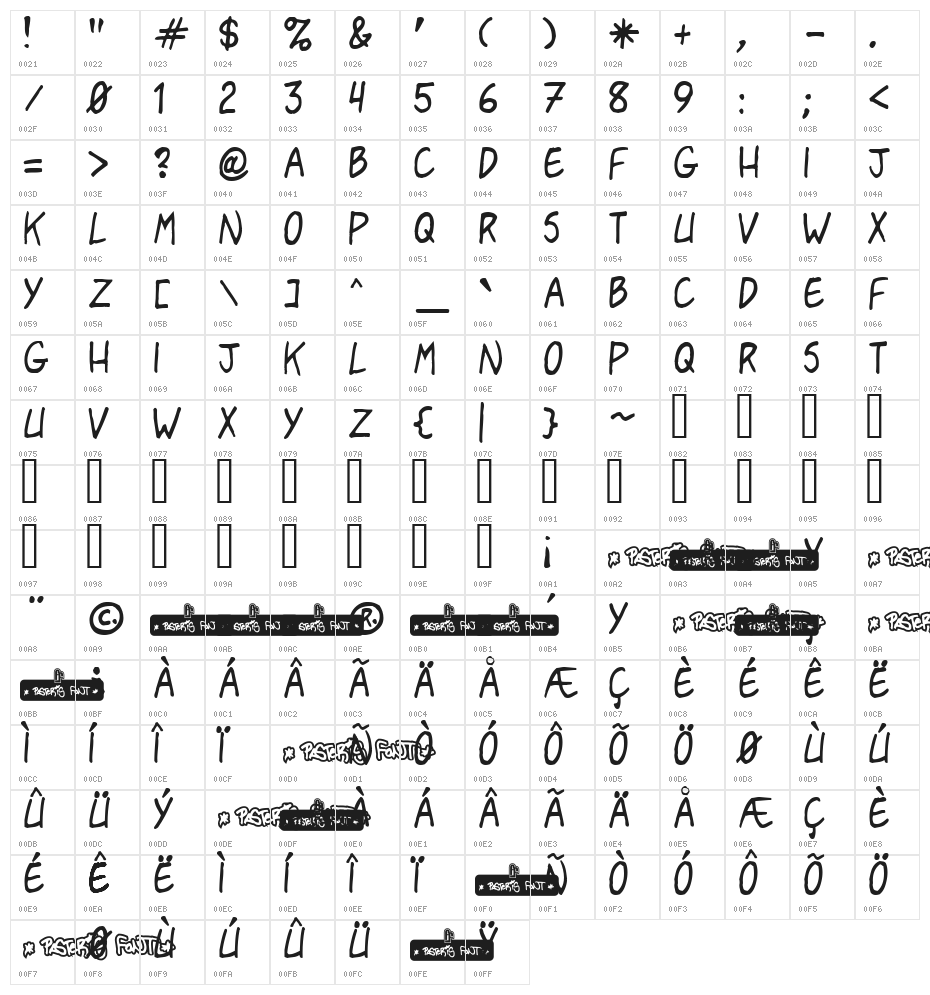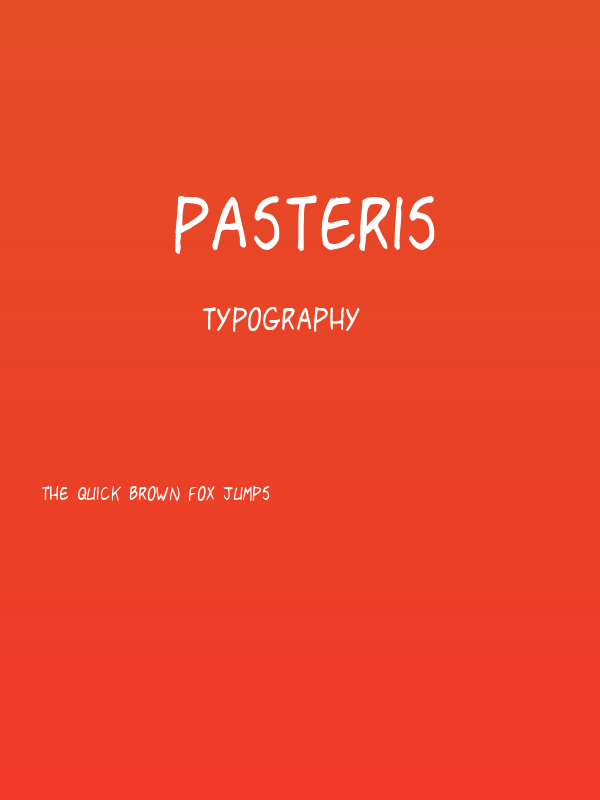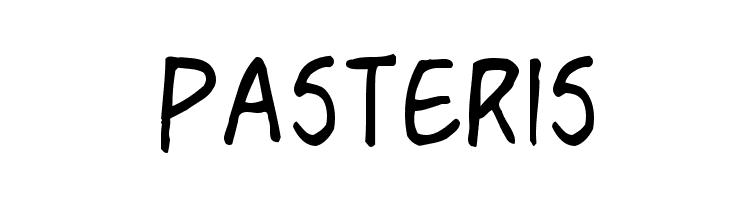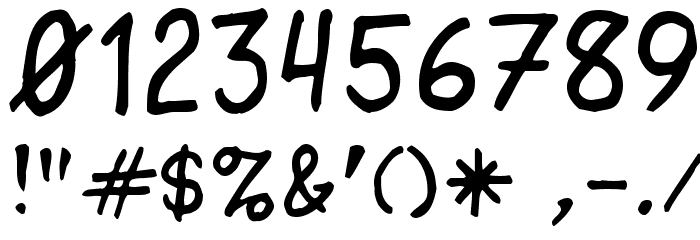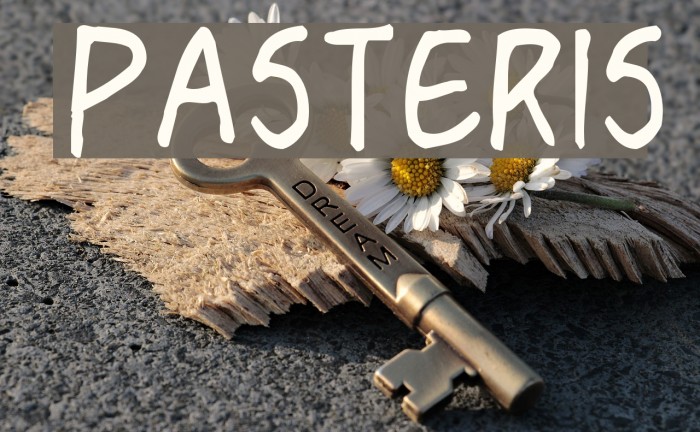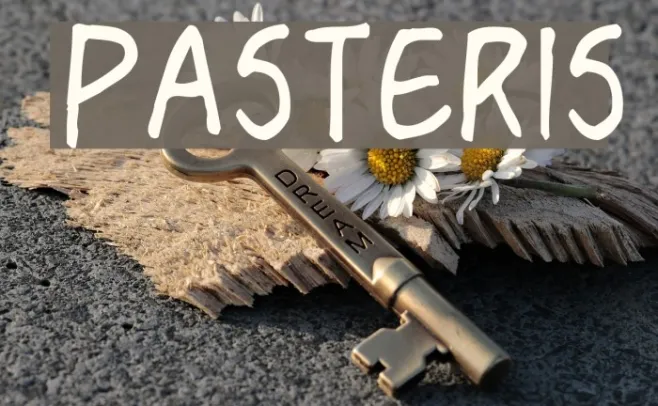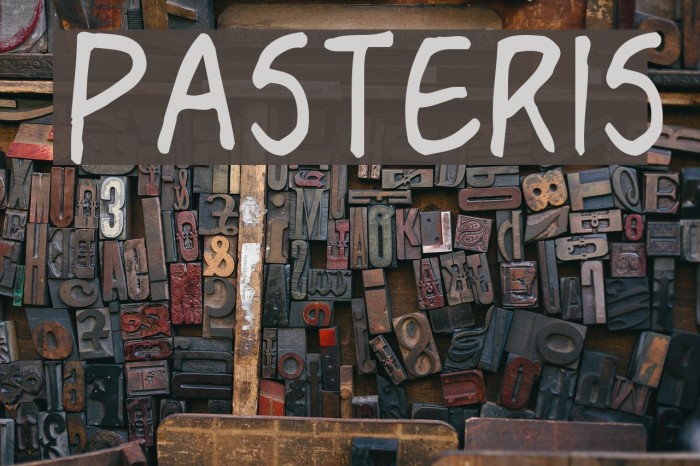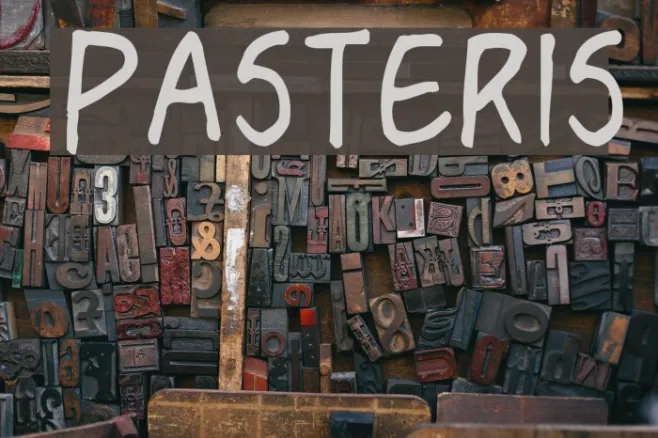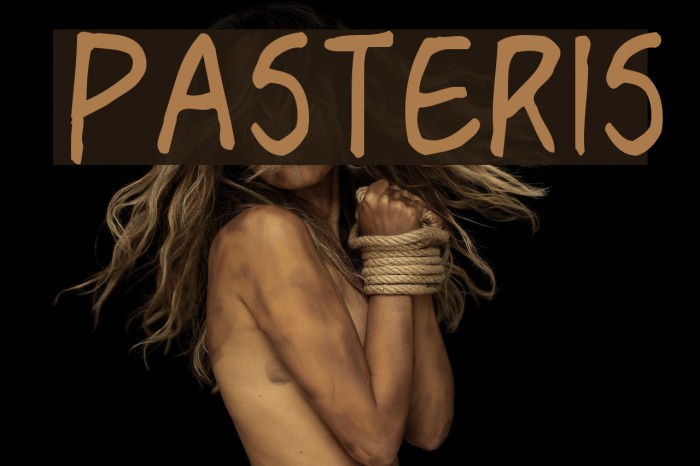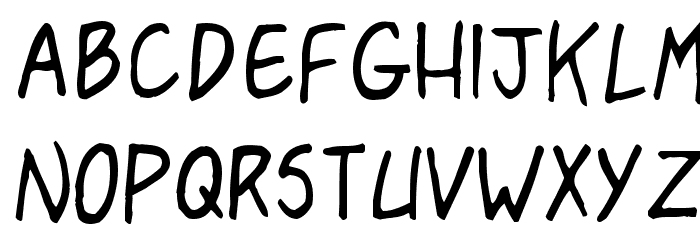
Pasteris Font
Pasteris Description
This font exhibits a playful and casual handwritten style, characterized by its irregular strokes and slightly uneven baseline. The letters have a dynamic and energetic appearance, with a mix of rounded and angular forms that add to its informal charm. The uppercase and lowercase letters maintain a consistent style, while the numerals and special characters are designed to complement the overall aesthetic. The font's organic feel makes it suitable for projects that require a personal touch or a sense of spontaneity.
| Overall Style | Casual, Playful |
| Use Case | Logos, Headlines, Informal Text |
| Proposed Projects | Ideal for greeting cards, personal branding, casual invitations, and playful social media graphics. |